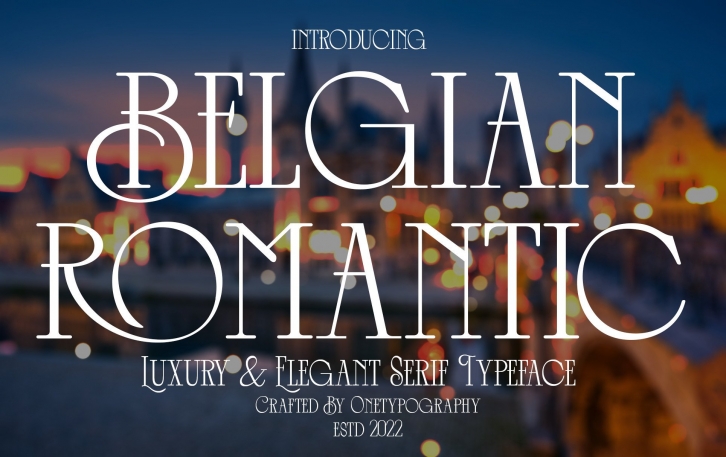
Belgian Romantic is a stylish and elegant display font. Masterfully designed to become a true favorite, this font has the potential to bring each of your creative ideas to the highest level!